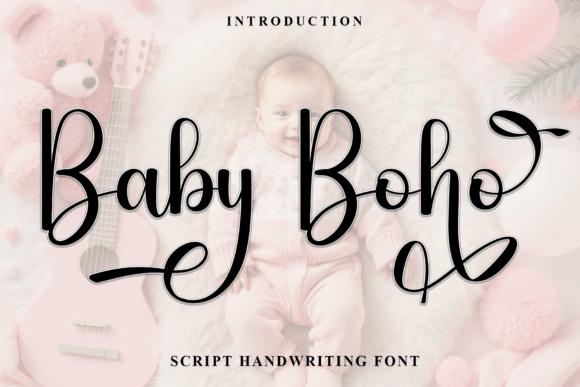
Get Ready to Fall in Love with the Charming Baby Boho Font
Have you ever stumbled upon a font that makes your creative heart skip a beat? For designers, this moment of serendipity is a treasure trove of inspiration. It happened to me when I discovered the Baby Boho Font – a charmingly authentic, handwritten display font that exudes sweetness and friendliness. Its playful nature is the perfect antidote to the sometimes-serious world of design.
The Baby Boho Font is more than just a pretty face; it’s a valuable addition to any designer’s toolkit. Whether you’re crafting wedding invitations, cards, or any other design project that demands a delightful touch, this enchanting font can lend a touch of whimsy to your creative endeavors.
Baby Boho Font Key Features
• Font Family: Baby Boho Font comes in a single font family with multiple weights, from Thin to Bold.
• Unique Characteristics: Baby Boho Font features a unique, hand-drawn design with subtle imperfections, giving it a charming, bohemian feel.
• Language Support: The font supports a wide range of languages, including Latin, Cyrillic, and Greek alphabets.
Baby Boho Font Review
At first glance, the Baby Boho Font is a charming, whimsical font that can add a touch of playfulness to any design project. ✨ Its handwritten feel and subtle imperfections give it a unique, organic look that can work well for a variety of applications, from wedding invitations to children’s book illustrations.
• ✨ Handwritten feel: The font’s imperfections and variations in stroke width give it a natural, human touch that can add a lot of character to designs.
• ✨ Playful vibe: Baby Boho Font has a carefree, bohemian feel that can work well for projects that require a lighthearted or whimsical tone.
However, there are a few limitations to consider: ⚠️ The font may not be the best choice for projects that require a more formal or professional tone, as its handwritten feel can come across as a bit too casual. Additionally, the font’s imperfections can sometimes make it difficult to read, especially at smaller font sizes.
Overall, I think the Baby Boho Font is a fun and creative option that can add a lot of personality to designs. While it may not be suitable for every project, it’s a great choice for those looking to add a touch of whimsy and playfulness to their work.
The Baby Boho Font is perfect for creating a whimsical and playful atmosphere in designs related to:
• Children’s products and toys.
• Baby and nursery decor.
• Wedding and event invitations.
Alternatives to Baby Boho Font
The Baby Boho Font is a popular, hand-drawn font often used for its whimsical and feminine touch. However, designers may be looking for alternatives that offer similar characteristics or unique features. Here are a few options:
Great Vibes is a script font that features a relaxed, casual feel. It’s perfect for use in titles, headings, and short phrases where a friendly, approachable tone is desired. Compared to Baby Boho Font, Great Vibes has a more laid-back, effortless vibe and is often used for modern and trendy designs.
Carolyna Pro is a sophisticated, elegant script font ideal for use in high-end designs, luxury branding, and formal invitations. It has a more refined and polished feel compared to Baby Boho Font, making it suitable for projects that require a touch of sophistication and glamour.